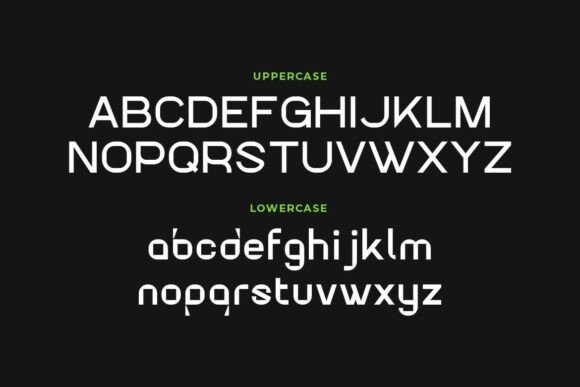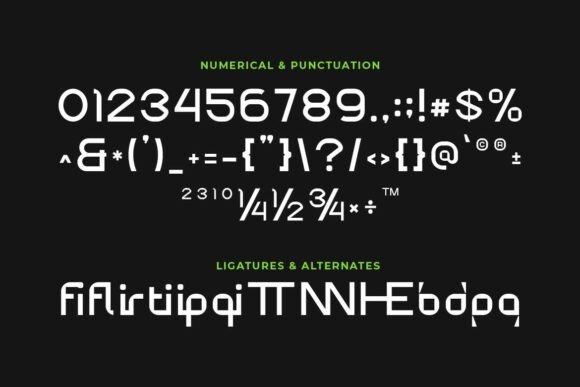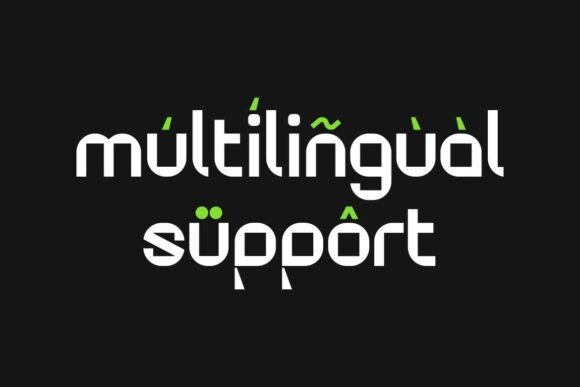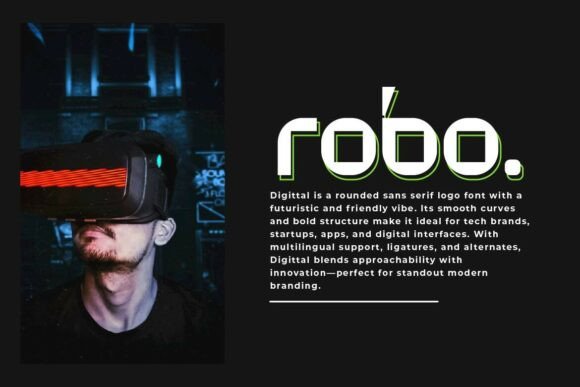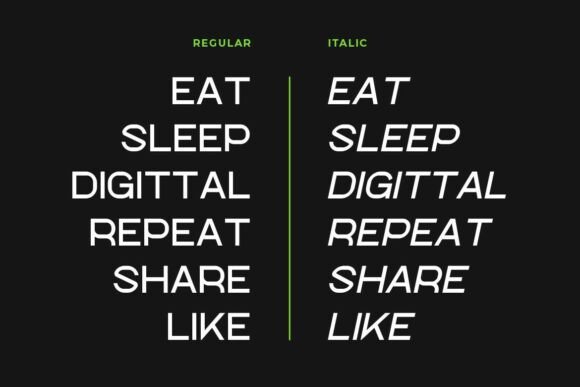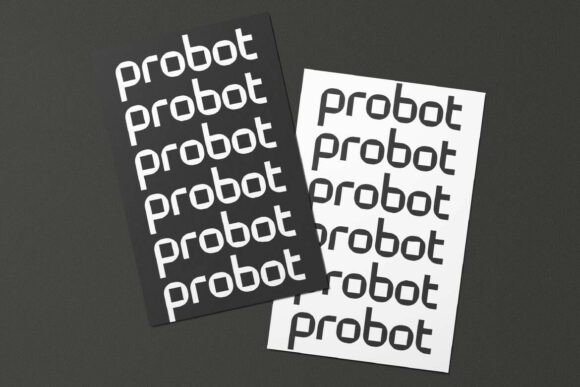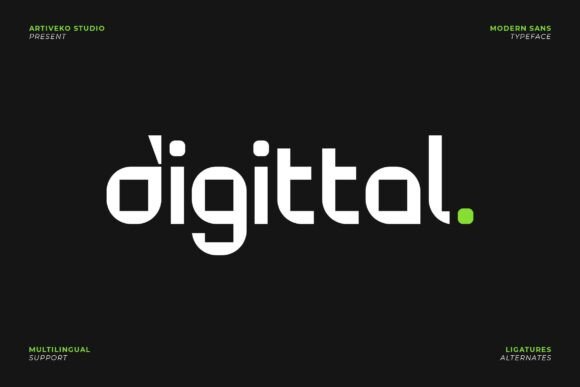
Introducing Digittal Font: The Ultimate Choice for Modern Tech Branding
In the rapidly evolving world of technology and digital innovation, a brand’s visual identity is more crucial than ever. A well-designed logo can make all the difference in establishing a company’s presence and conveying its values. This is where the Digittal Font comes into play – a sleek and innovative logo font specifically crafted to capture the essence of technology and digital advancement.
The Design Philosophy Behind Digittal
Digittal is not just a font; it’s a statement. Its design is rooted in the principles of geometric precision, sharp angles, and a futuristic vibe. These characteristics make it an ideal choice for tech startups, app logos, gaming titles, digital products, UI/UX design, and modern branding projects that strive for a cutting-edge look.
Key Features of Digittal Font
- Geometric Precision: Each letter in the Digittal Font is meticulously crafted with geometric shapes, providing a clean and precise look that resonates with the tech industry’s emphasis on innovation and accuracy.
- Sharp Angles: The font’s sharp angles contribute to its modern and dynamic feel, making it perfect for brands that want to convey speed, efficiency, and forward-thinking.
- Futuristic Vibe: The overall design of Digittal exudes a sense of futurism, making it an excellent fit for companies involved in emerging technologies, digital solutions, and innovative products.
Applications of Digittal Font
The versatility of the Digittal Font makes it suitable for a wide range of applications, including:
- Tech Startups: For new tech companies, establishing a strong brand identity is crucial. Digittal offers a professional and innovative look that can help startups stand out in a competitive market.
- App Logos: With the increasing number of mobile apps, a distinctive logo is vital for app developers. Digittal’s unique design ensures that app logos are eye-catching and memorable.
- Gaming Titles: The gaming industry is known for its creativity and innovation. Digittal’s futuristic and dynamic design makes it an excellent choice for game titles and logos.
- Digital Products: For companies offering digital products and services, Digittal provides a modern and tech-savvy look that appeals to digital natives.
- UI/UX Design: In user interface (UI) and user experience (UX) design, typography plays a critical role. Digittal’s readability and aesthetic appeal make it suitable for digital interfaces.
- Modern Branding Projects: Any brand aiming for a modern and cutting-edge image can benefit from using the Digittal Font in their branding materials.
Why Choose Digittal Font?
Choosing the right font for a brand’s logo or branding materials can be daunting. Here are a few reasons why Digittal stands out:
- Uniqueness: Digittal offers a unique blend of geometric precision and futuristic aesthetics, making it distinct from more traditional fonts.
- Versatility: Its adaptability across various mediums, from digital screens to print materials, ensures that Digittal remains effective in all contexts.
- Professionalism: The font’s sleek and modern design conveys professionalism and innovation, essential qualities for tech-related brands.
In conclusion, the Digittal Font is a powerful tool for any brand looking to make a statement in the tech industry. Its sleek design, geometric precision, and futuristic vibe make it an ideal choice for modern branding projects. Whether you’re a tech startup, a gaming company, or a digital product provider, Digittal offers the perfect blend of innovation and professionalism to elevate your brand’s visual identity.
Embrace the future of digital branding with Digittal Font – where technology meets typography.